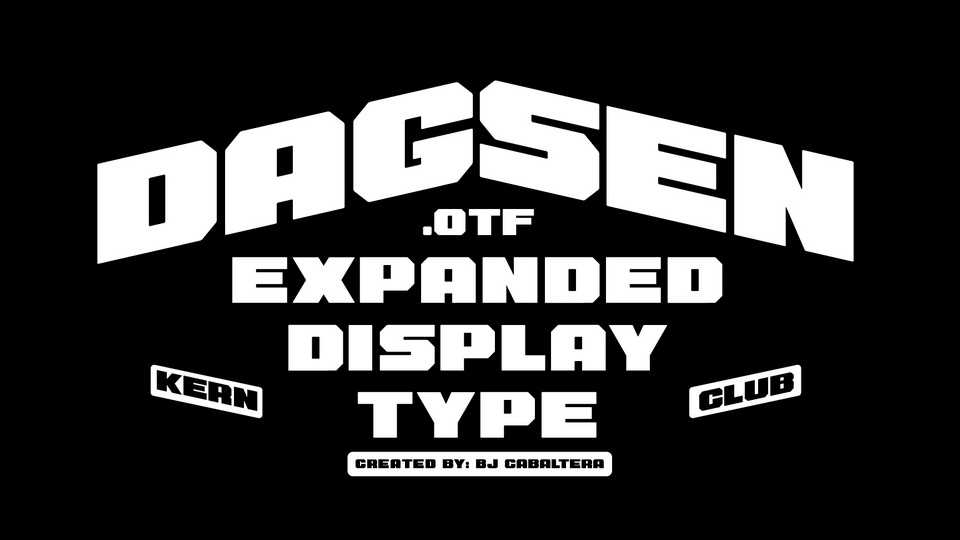
Download Dagsen font, an expanded display type inspired by Pinoy classic jeepney sign type Cubao Free by Aaron Amar and the vintage industrial feel of DDC Hardware by DDC.
Designer: Bj Cabaltera